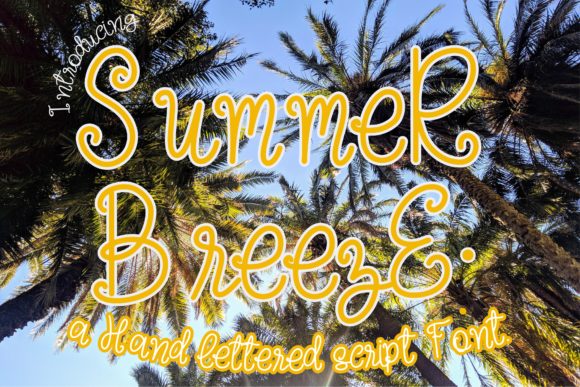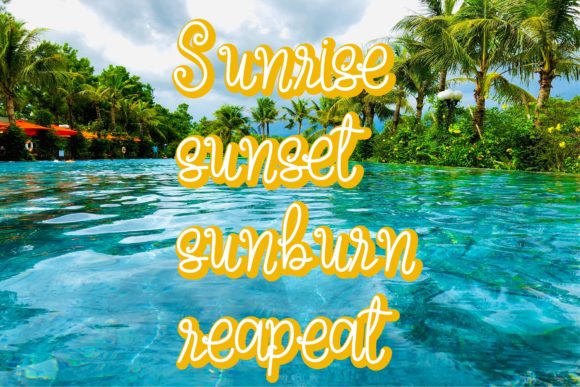
About Summer Breeze Font
Summer Breeze is a cute and casual handwritten font with an incredibly friendly feel. It features gorgeous characters and ligatures that make this script incredibly versatile. Whether you’re looking for fonts for Instagram or calligraphy scripts for DIY projects, Summer Breeze will turn any creative idea into a true piece of art!